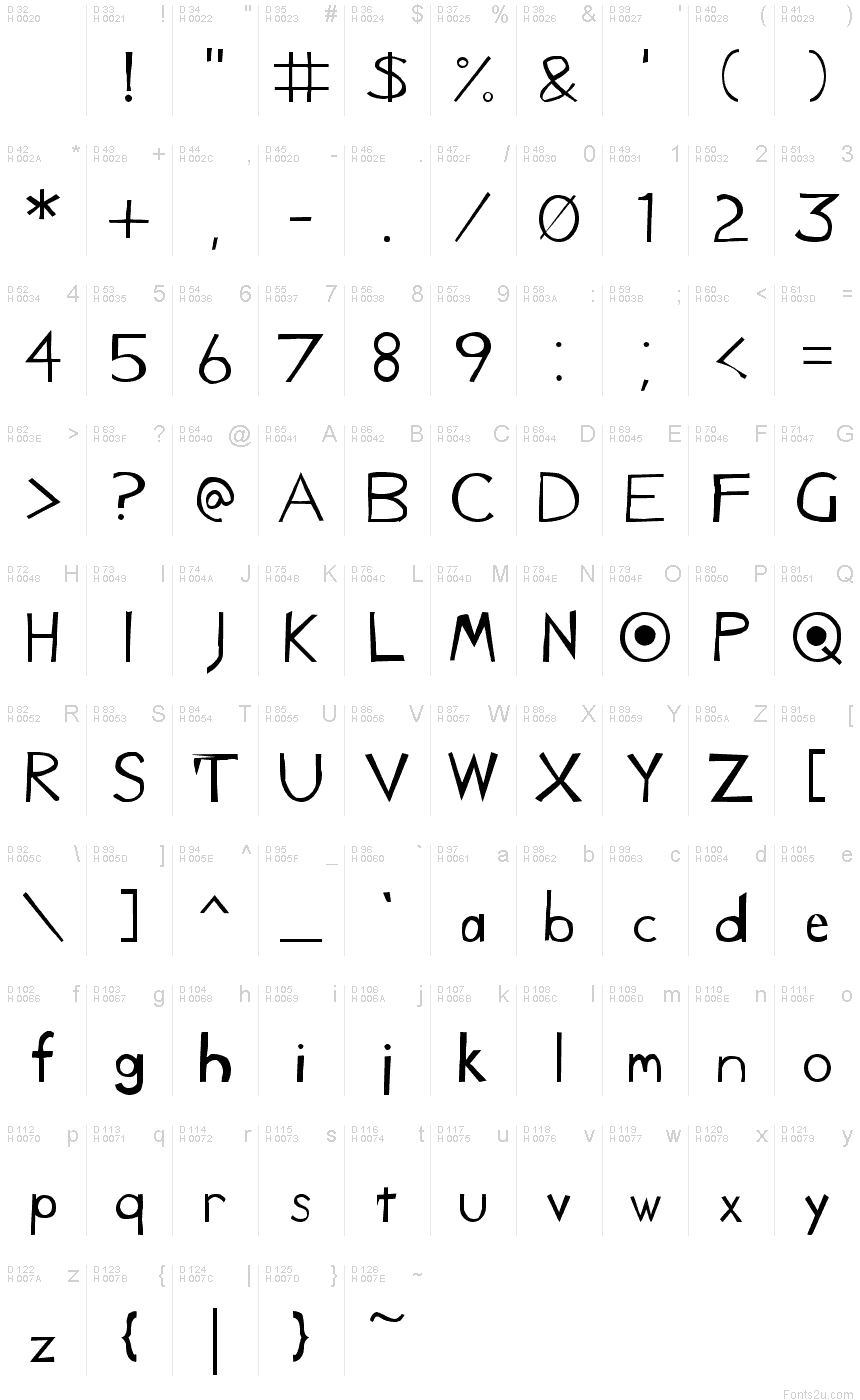
Caduceus
Caduceus font by Tepid Monkey Fonts is a free distorted display typeface with a strange, slithering elegance. Its thin, uneven strokes and subtly warped curves feel like ink that’s been nudged by something unseen—just enough to make words look uncanny without becoming unreadable. There’s a quiet, witchy energy to it, like old apothecary labels or a spellbook title that’s been handled a bit too often.
Using Caduceus, you can give instant mood to book covers, occult zines, fantasy game titles, haunted event posters, potion-themed packaging, and eerie logotypes. The rhythm between thick and skinny segments keeps lines feeling alive, so it works beautifully for short phrases and headings rather than long text blocks. This free font pairs well with a clean geometric sans in small caps, letting Caduceus handle the drama while the body copy stays calm and legible.